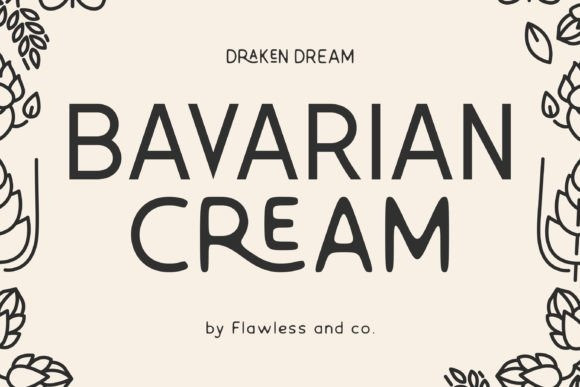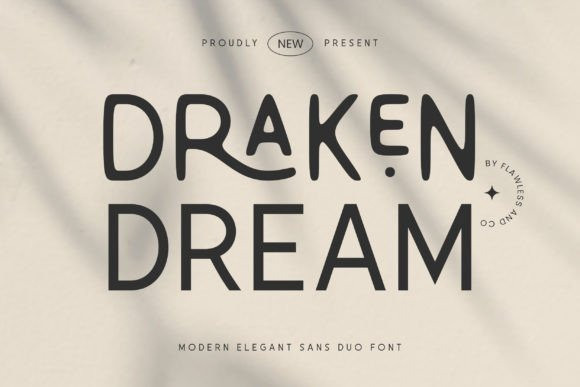
Draken Dream Font
Draken Dream Font – A Modern Elegant Sans Duo Font. Experience the epitome of modern elegance with “Draken Dream,” a striking sans-serif font duo that seamlessly marries sophistication with contemporary design. With its versatile duo of regular and smooth styles, “DrakenDream” offers a dynamic combination that’s perfect for a range of creative projects.